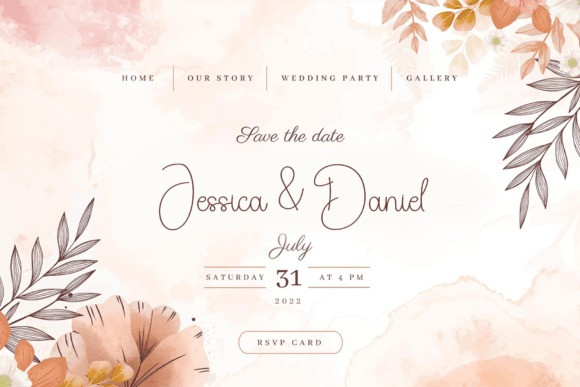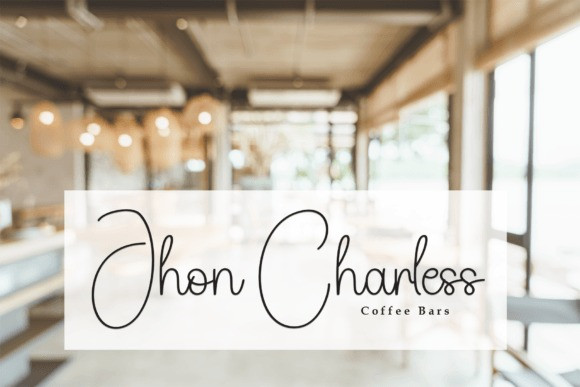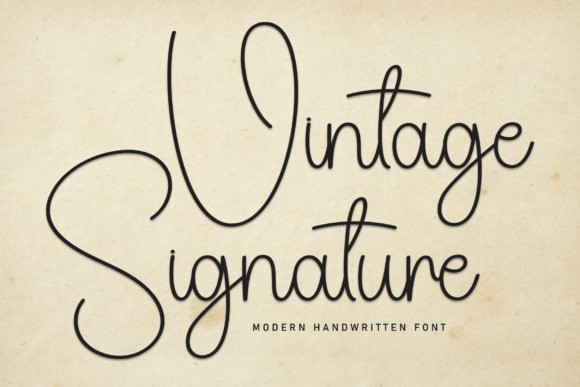
Vintage Signature Handwriting Font
Vintage Signature Handwriting Font is a contemporary handwritten font that brings a touch of nostalgia to your projects. With a stylish and timeless vibe, this font adds a personal, handcrafted feel to your designs. Perfect for creating a signature look in a modern context, Vintage Signature is versatile and easy to use. Elevate your projects with this charming and approachable font that effortlessly combines a classic feel with a modern twist.